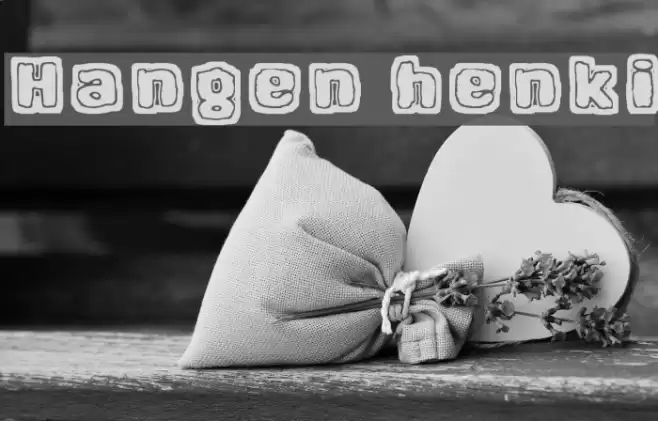
Hangen henki Font
Hangen henki Description
This font features a bold, playful style with a thick outline that gives each character a distinct, cartoonish appearance. The letters are uppercase and lowercase, with a consistent, rounded shape that adds a friendly and approachable feel. The numbers and special characters follow the same design, ensuring uniformity across all glyphs. The font's unique aesthetic makes it ideal for projects that require a fun and engaging look, such as children's books, comic strips, or playful branding materials.
A bold, playful font with thick outlines and a cartoonish style from Uncategorized fonts.
- Proposed Projects: Ideal for children's books, comic strips, playful branding, and posters.
- Overall Style: Playful, Cartoonish